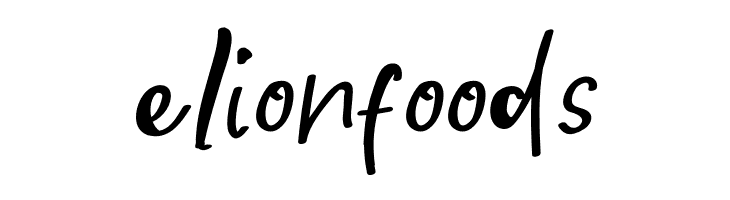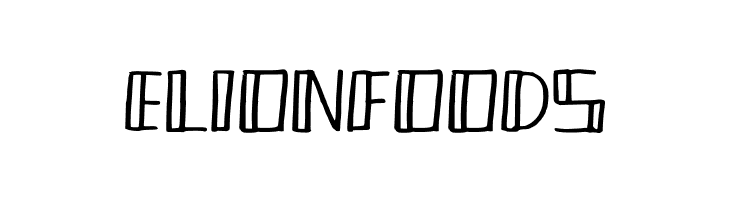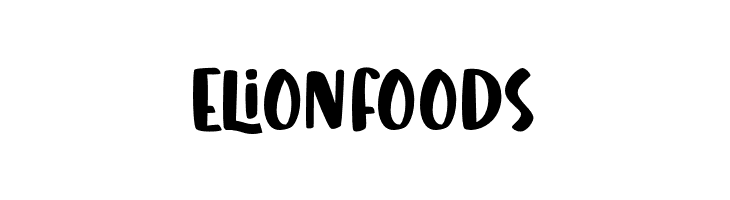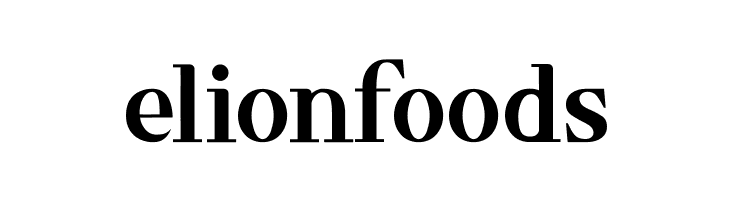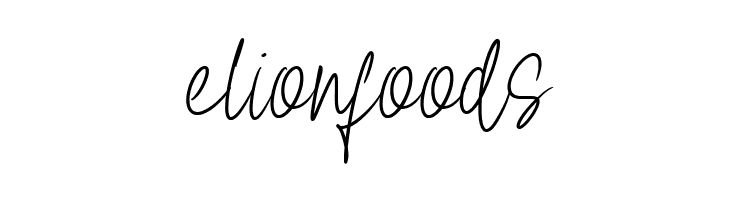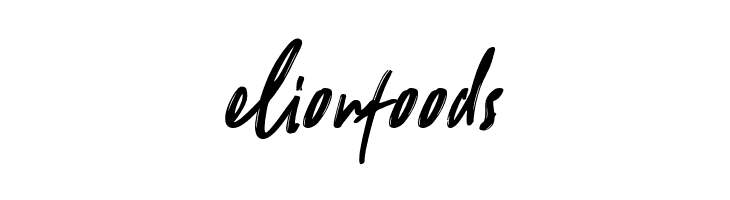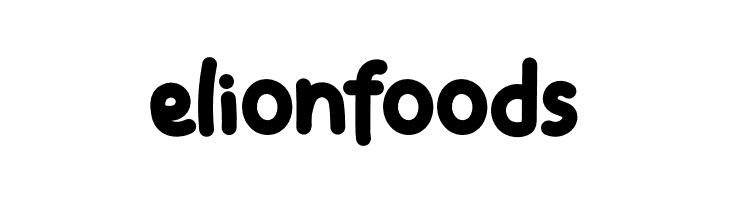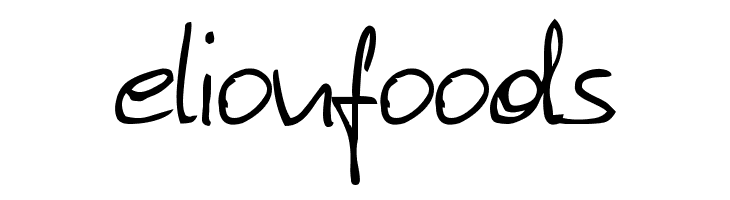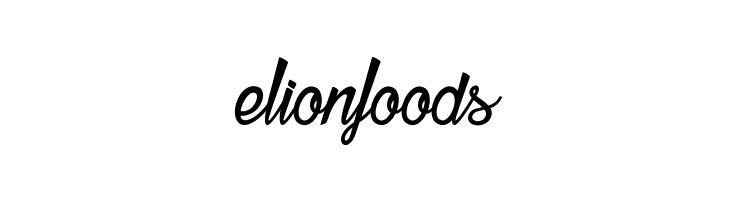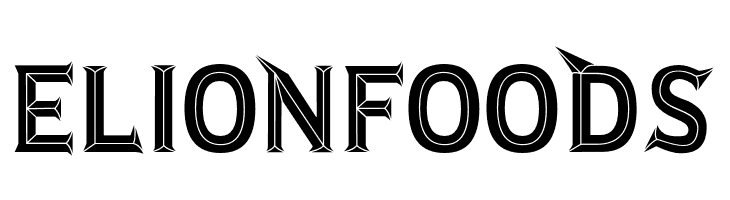
A dynamic and expressive handwritten font with fluid strokes.
A bold, high-contrast serif font with dramatic strokes and a commanding presence.
A bold, italic script font with decorative loops and high contrast.
A lively, cursive handwritten font with elegant, flowing strokes.
An elegant, swash-style font with ornate, flowing lines and calligraphic elements.
A bold, angular font with a futuristic and geometric design.
A dynamic and elegant script font with fluid, cursive letterforms.
A bold, playful font with thick strokes and rounded edges.
A playful, bold, and hollow outlined font with a whimsical style.
An elegant script font with flowing, cursive lines and intricate flourishes.
A fluid, elegant script font with a natural handwritten style.
A modern, geometric stencil font with bold, angular cuts.
A modern, geometric font with a clean and professional appearance.
A bold, modern font with clean lines and strong legibility.
A modern, clean sans-serif font with uniform structure and high legibility.
A dynamic and flowing script font with elegant, fluid strokes and medium contrast.
A dynamic and flowing script font with elegant curves and varying stroke thickness.
A bold, italicized font with dynamic, angular uppercase and flowing lowercase letters.
A playful, bold font with rounded, thick strokes and a whimsical style.
A classic serif font with elegant strokes and balanced proportions.
An elegant italic font with moderate contrast and a sophisticated style.
An oblique serif font with dynamic angles and high contrast.
A classic serif font with elegant strokes and refined proportions.
A bold, modern font with geometric lines and a slightly condensed style.
A bold, modern font with geometric influences and strong visual impact.
A playful, hand-drawn font with bold strokes and medium contrast.
A bold, hand-drawn font with angular, dynamic strokes and a playful style.
A playful, bold font with rounded, hand-drawn letterforms.
A playful, bold handwritten font with rounded strokes and a casual feel.
A festive font with each letter topped by a Santa hat, perfect for holiday projects.
A festive, bold font with Santa hats on each letter, perfect for holiday themes.
A dynamic handwritten font with fluid, expressive strokes and a casual appearance.
A bold, geometric font with a modern and professional style.